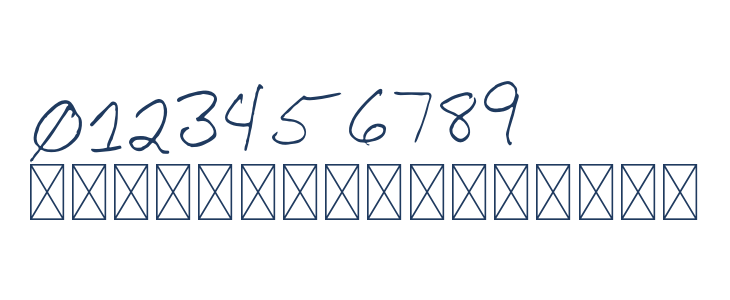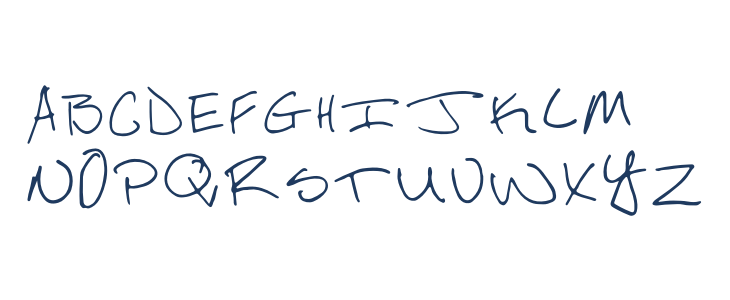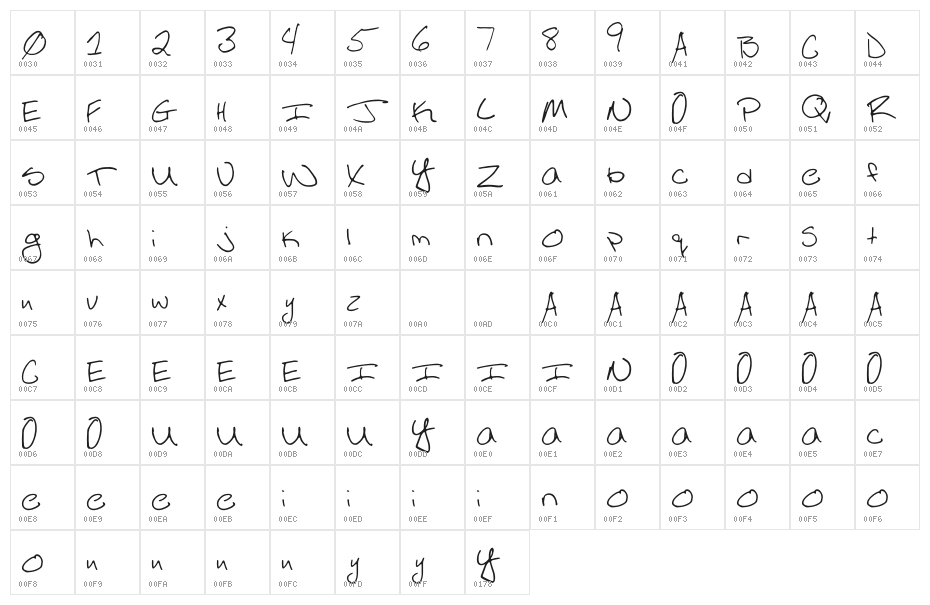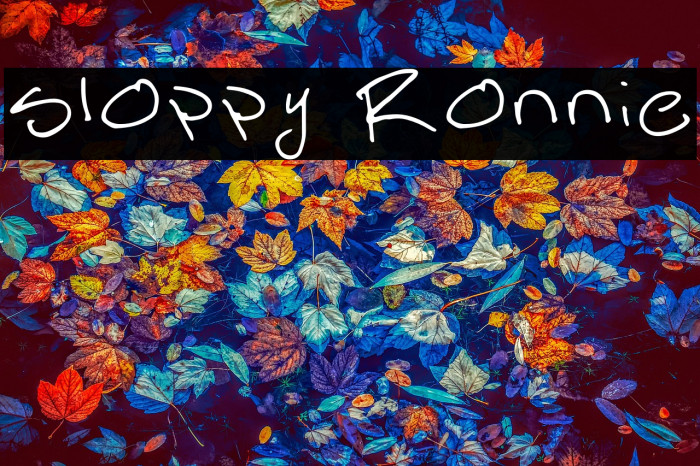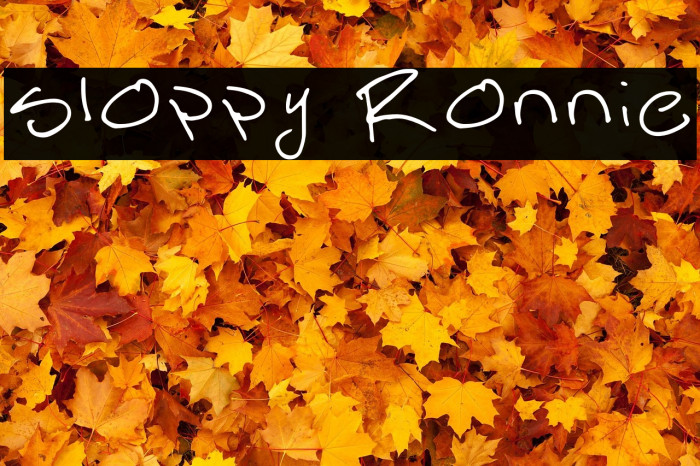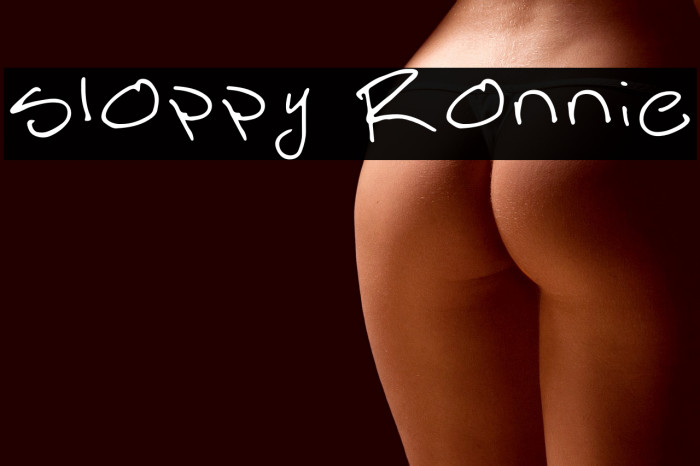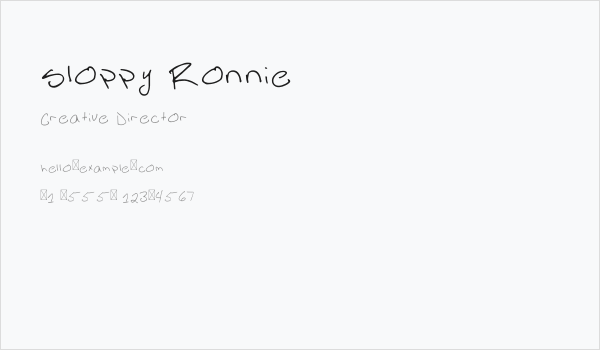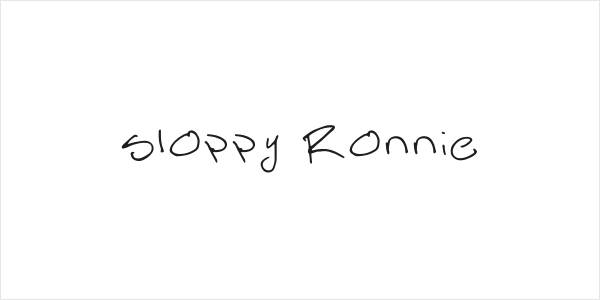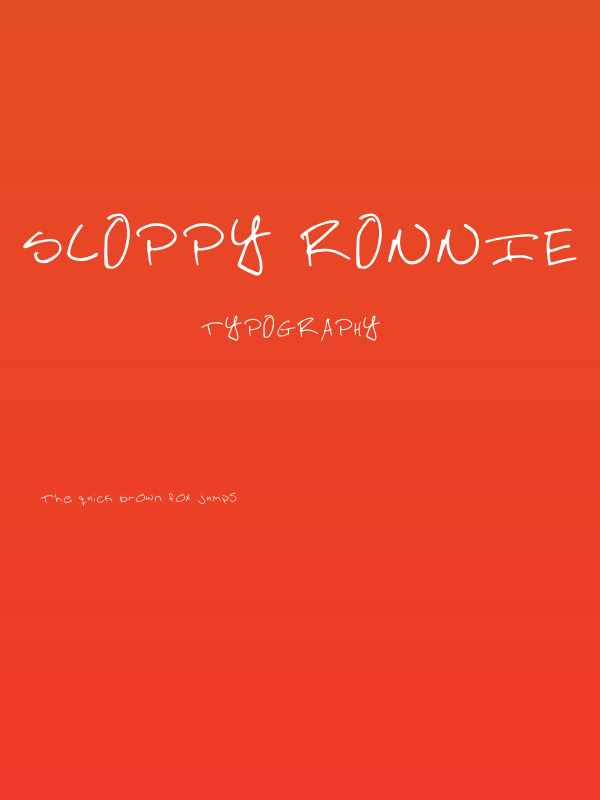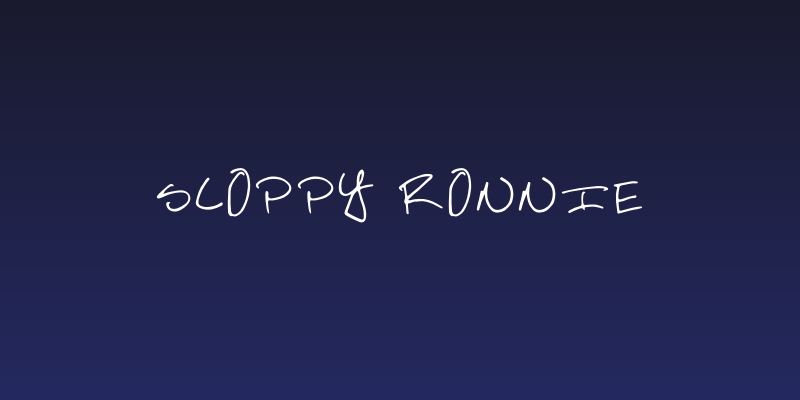
Sloppy Ronnie Font
Sloppy Ronnie Description
A casual, handwritten font with irregular, loose strokes and a playful, informal appearance. The characters have varying heights and angles, mimicking natural handwriting with a slightly messy feel.
| Overall Style | Casual, Playful, Informal |
| Use Case | Personal notes, Informal headlines, Creative projects |
| Proposed Projects | Greeting cards, informal invitations, children's projects, comics, personal notes, creative posters. |